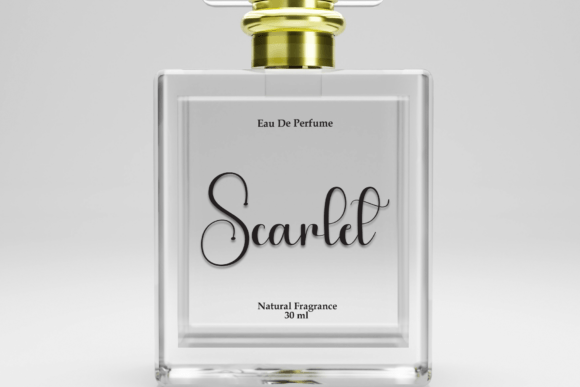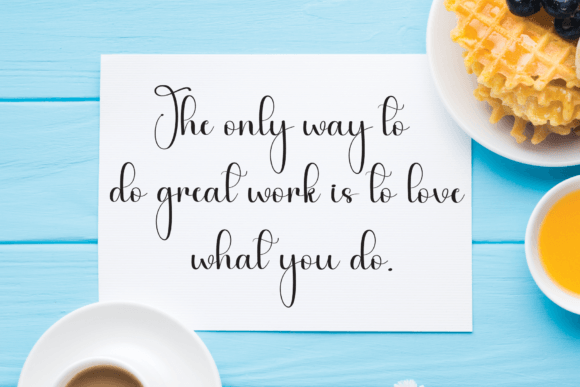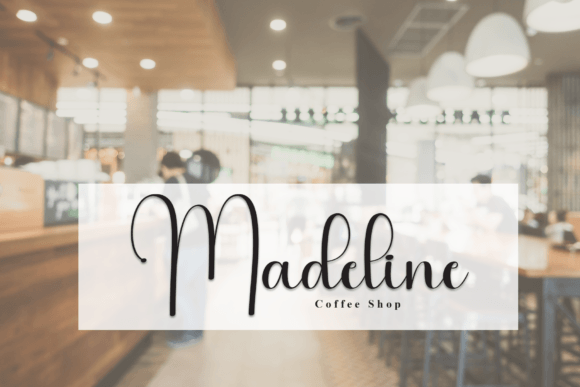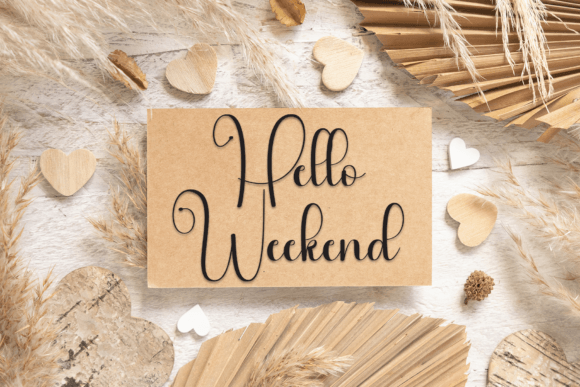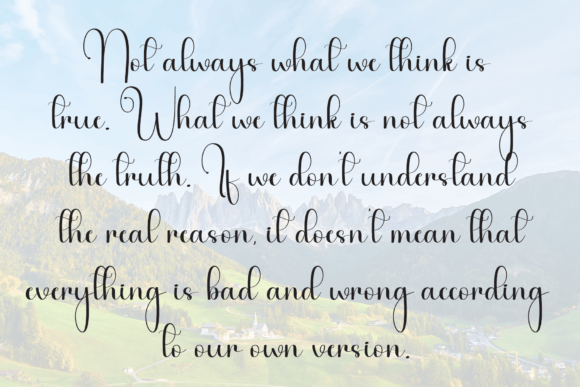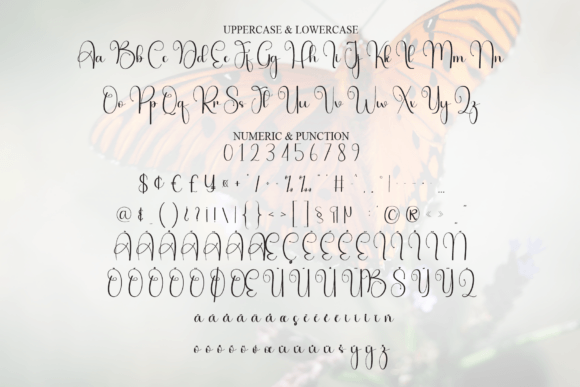
Introducing Butterfly Font: A Delightful Handwritten Display Font
Are you looking for a font that can add a touch of whimsy and charm to your design projects? Look no further than Butterfly Font, a delightful and warm handwritten display font that is perfect for crafting romantic wedding invitations, heartfelt cards, and other designs that require a playful and engaging touch.
The Perfect Match for Romantic Designs
Butterfly Font is named for its playful essence, and it’s easy to see why. This font is the perfect match for any design project that requires a touch of romance and whimsy. Whether you’re creating wedding invitations, anniversary cards, or other romantic designs, Butterfly Font is sure to deliver a joyful impact in every stroke.
A Lively Visual Tool for Creative Pursuits
Butterfly Font is more than just a font; it’s a lively visual tool designed to inject fun and personality into your creative pursuits. With its sweet ambiance and playful strokes, this font is perfect for designers and crafters who want to add a touch of personality to their work. Whether you’re creating digital designs or handmade crafts, Butterfly Font is sure to bring a smile to your face and inspire your creativity.
Key Features of Butterfly Font
- Handwritten display font: Butterfly Font is a handwritten display font that is perfect for headlines, titles, and other design elements that require a personal touch.
- Delightful and warm: This font has a delightful and warm feel that’s perfect for creating romantic and whimsical designs.
- Playful essence: Butterfly Font has a playful essence that’s sure to bring a touch of fun and personality to your designs.
- Perfect for romantic designs: This font is perfect for crafting romantic wedding invitations, heartfelt cards, and other designs that require a touch of whimsy and charm.
Uses for Butterfly Font
Butterfly Font is a versatile font that can be used for a variety of design projects, including:
- Wedding invitations: This font is perfect for creating romantic wedding invitations that set the tone for a special day.
- Heartfelt cards: Butterfly Font is great for creating heartfelt cards for special occasions, such as anniversaries, birthdays, and holidays.
- Digital designs: This font can be used for digital designs, such as social media graphics, blog posts, and email newsletters.
- Handmade crafts: Butterfly Font is perfect for handmade crafts, such as scrapbooking, journaling, and card making.
Tips for Using Butterfly Font
Here are a few tips for using Butterfly Font in your design projects:
- Use it sparingly: Butterfly Font is a display font, so it’s best to use it sparingly to add emphasis and personality to your designs.
- Pair it with other fonts: This font pairs well with other fonts, such as serif and sans-serif fonts, to create a unique and interesting design.
- Experiment with colors: Butterfly Font looks great in a variety of colors, so don’t be afraid to experiment and find the perfect color for your design.
Butterfly Font is a delightful and warm handwritten display font that is perfect for adding a touch of whimsy and charm to your design projects. With its playful essence and sweet ambiance, this font is sure to deliver a joyful impact in every stroke. Whether you’re a designer or crafter, Butterfly Font is a lively visual tool that’s sure to inspire your creativity and bring a smile to your face.